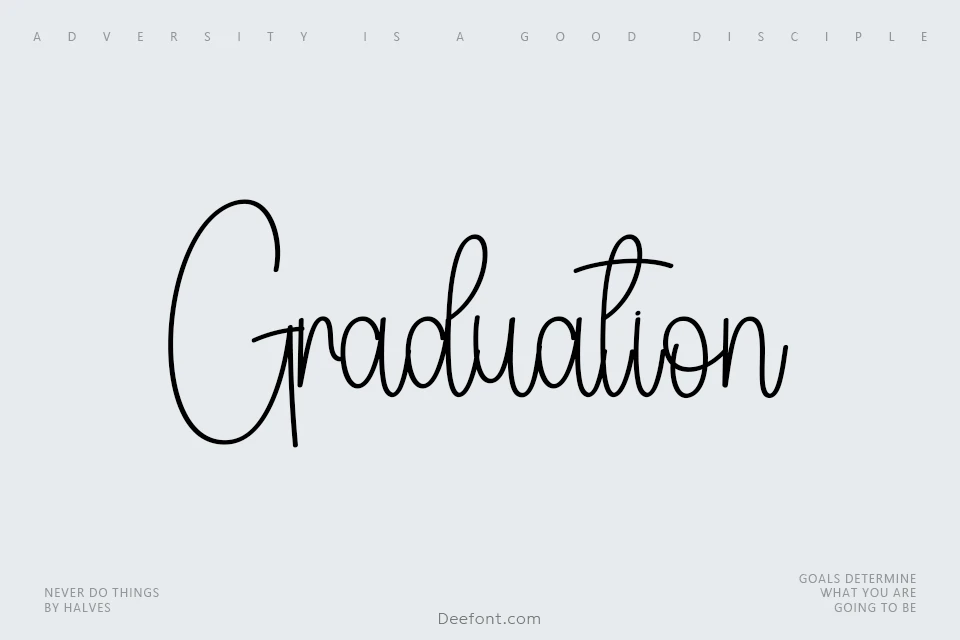
Graduation Script Font
Graduation Script Font is a charming handwritten font that exudes warmth and friendliness. With its smooth, flowing strokes and playful curves, it brings a sense of whimsy to invitations, packaging, and social media graphics. Spread joy and delight with the inviting charm of this typeface. Perfect for wall displays, wedding invitations, social media post logos, advertisements, product packaging, photography, watermarks, stationery, and any project that requires tasteful handwriting.Graduation Script Font offers a modern and elegant look, making your creations luxurious and attractive.